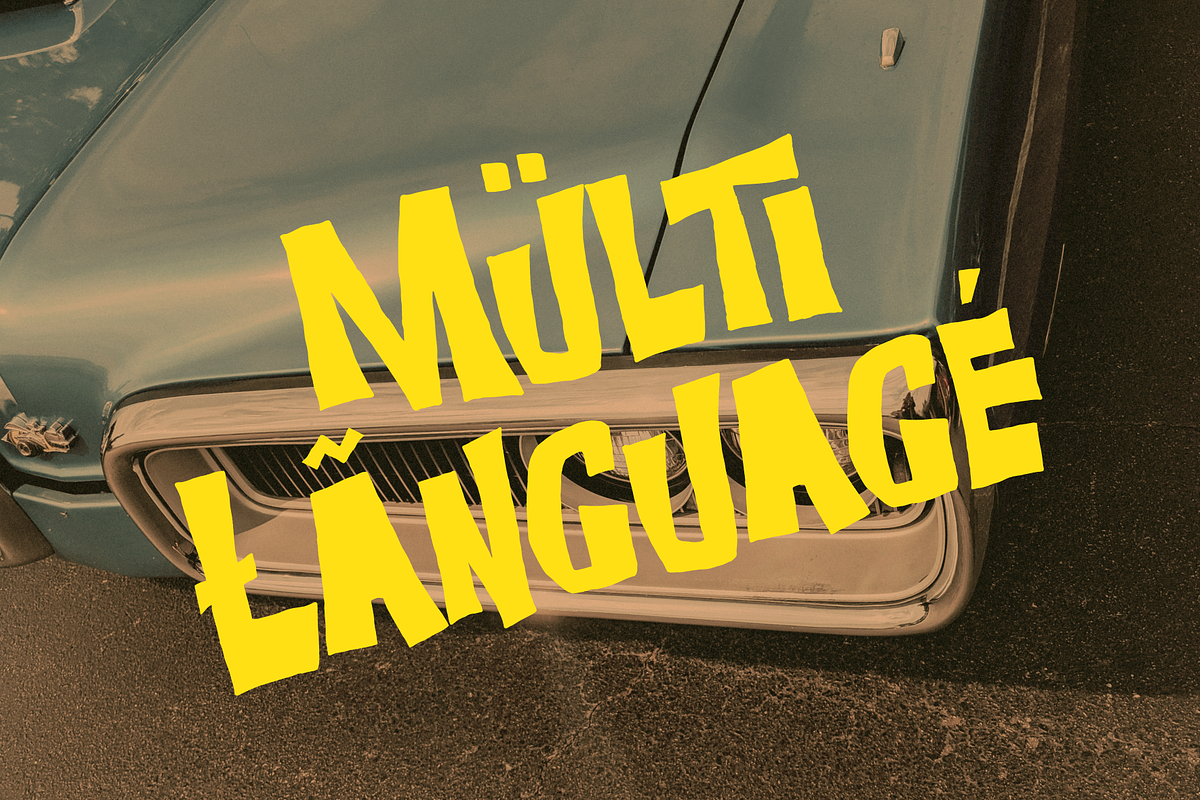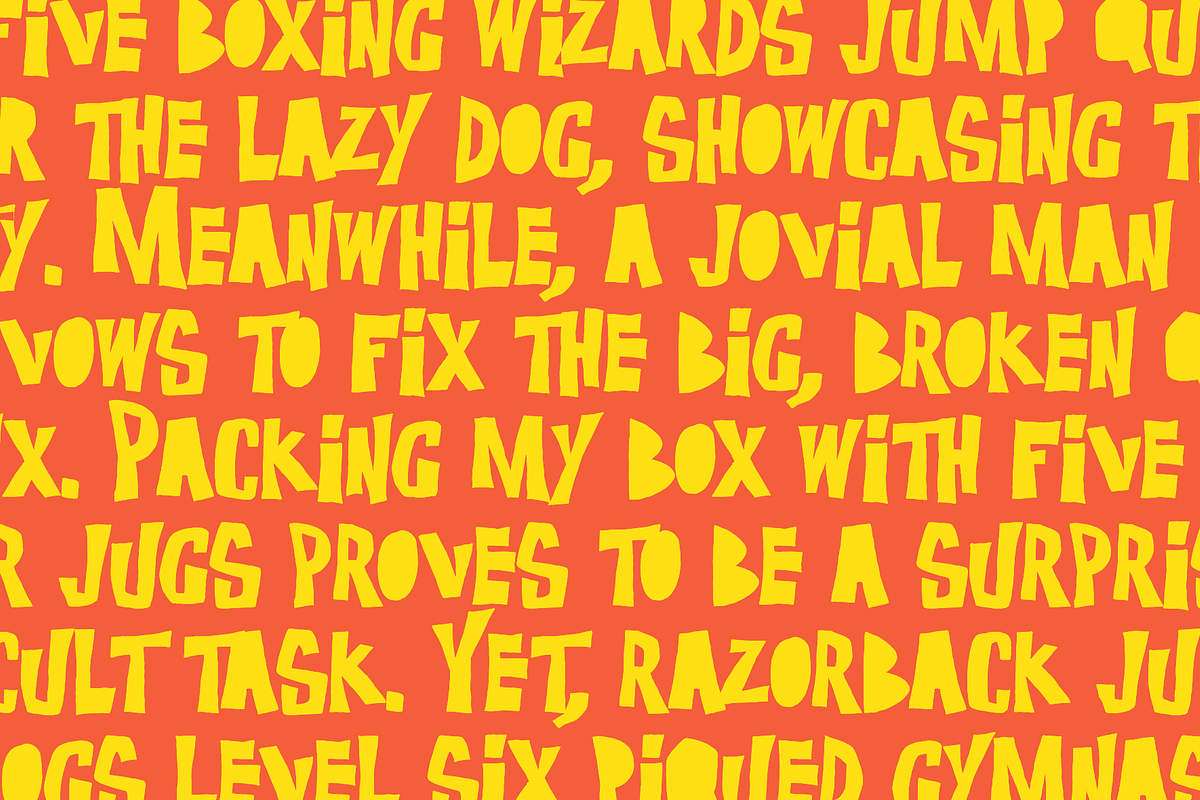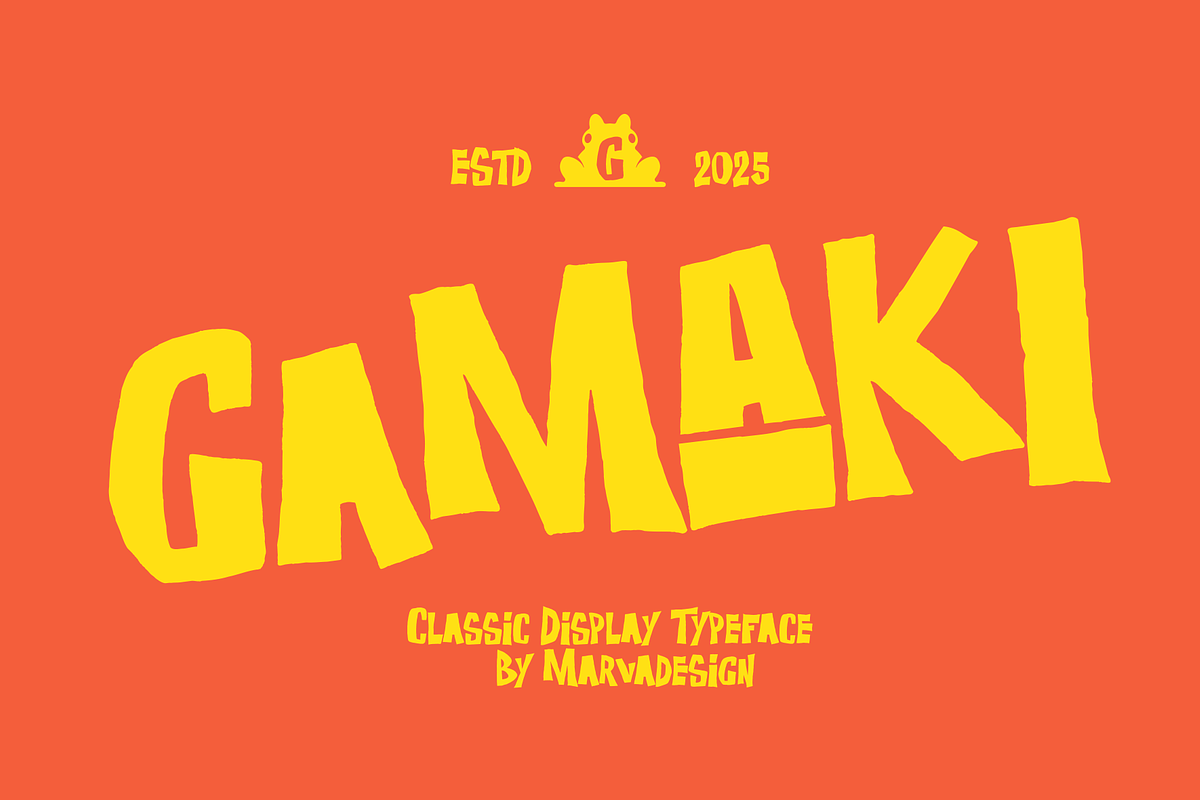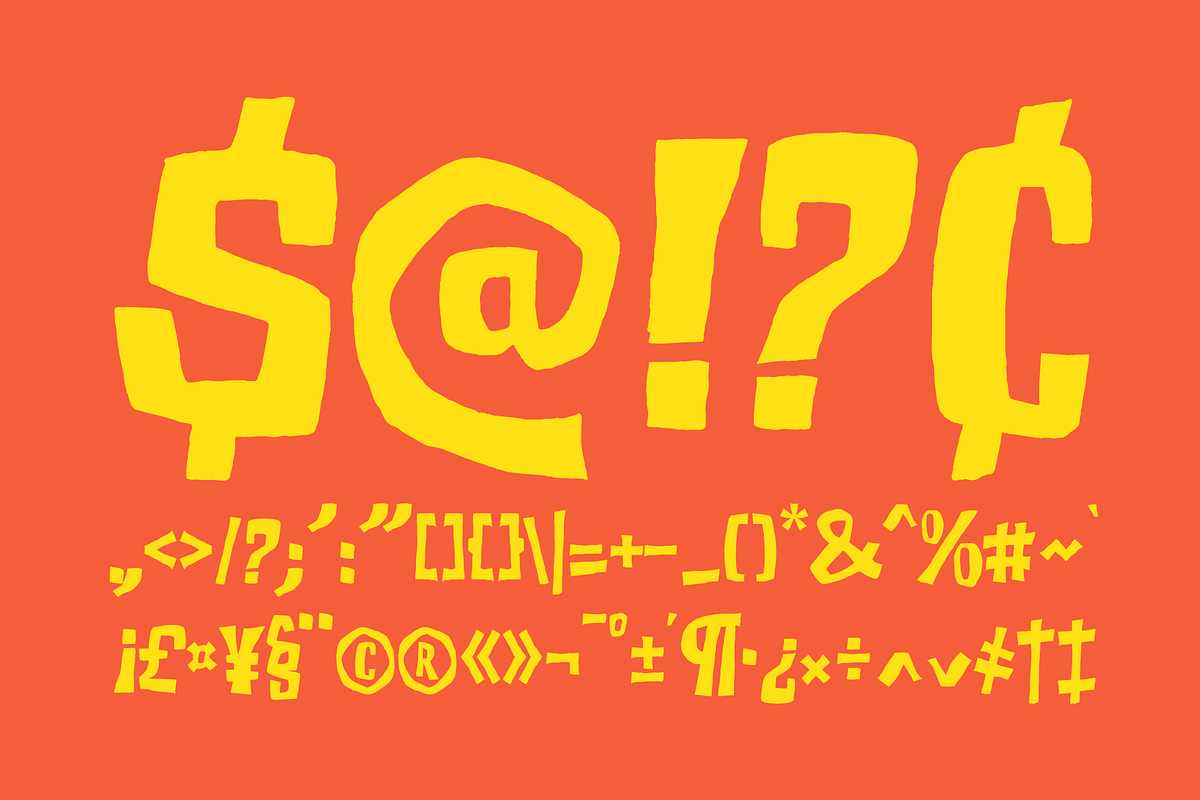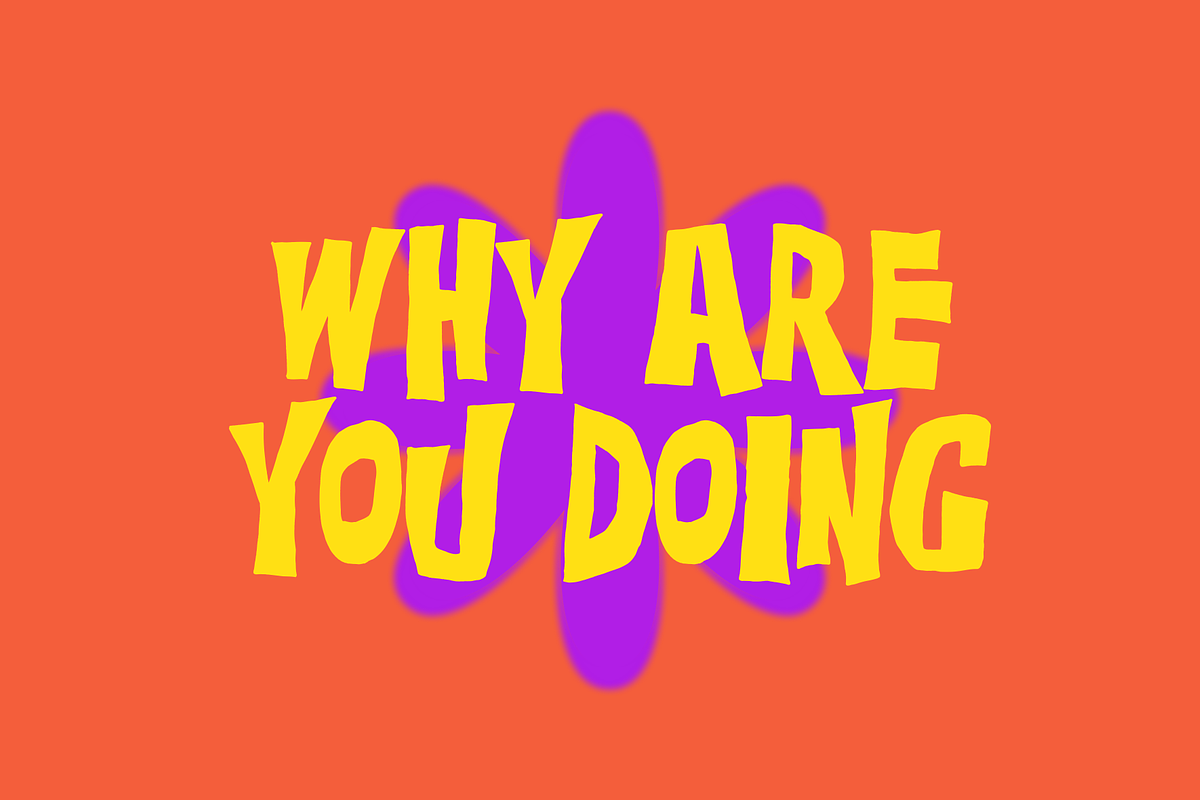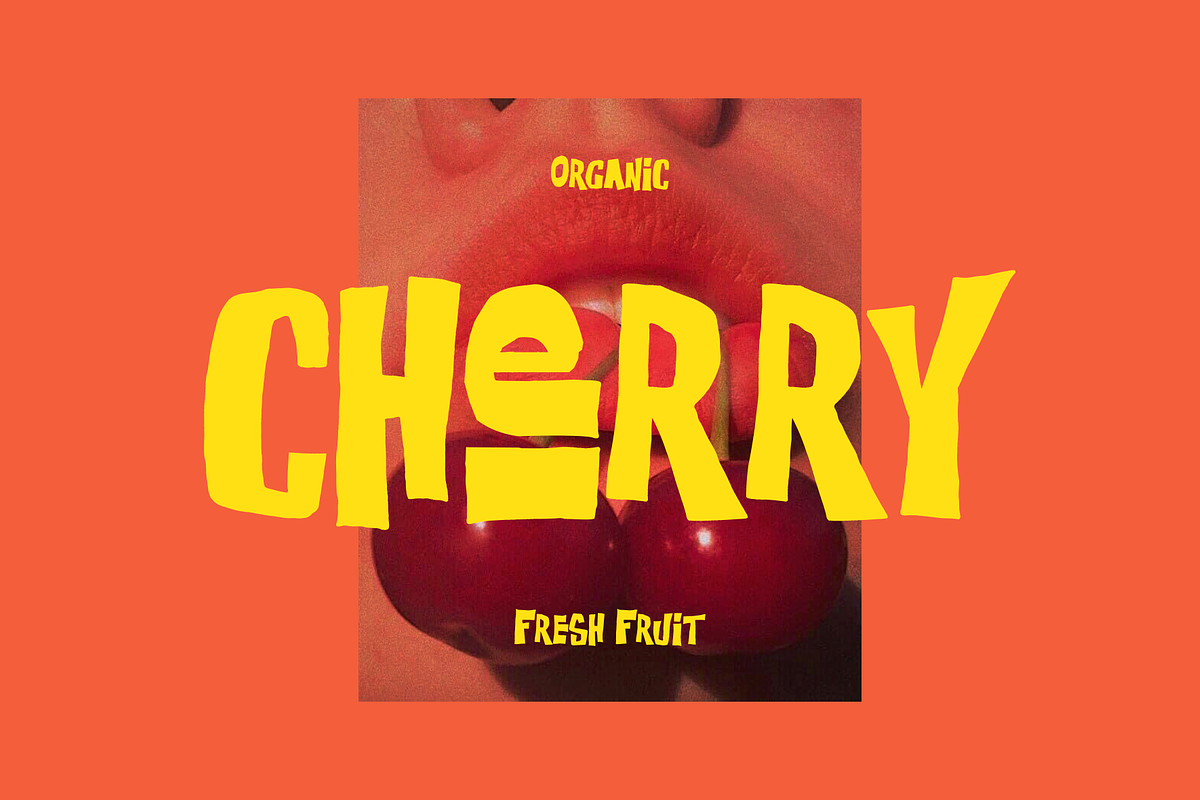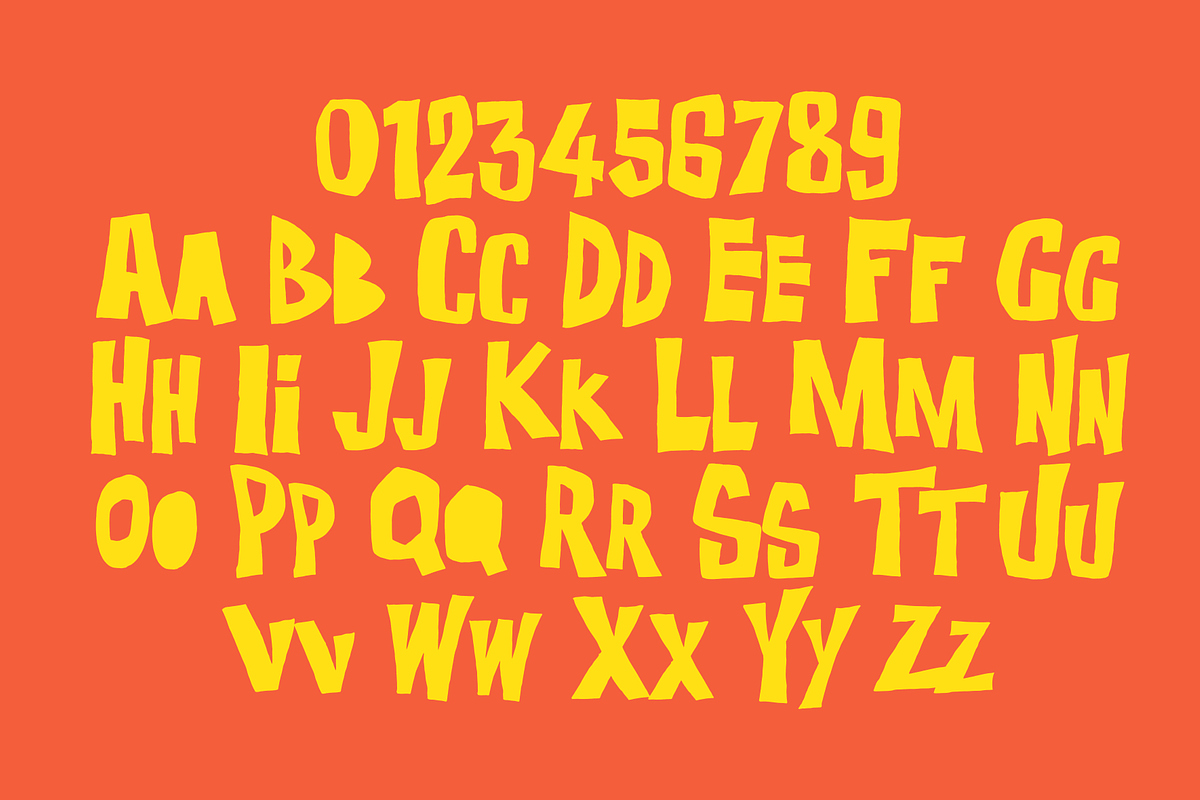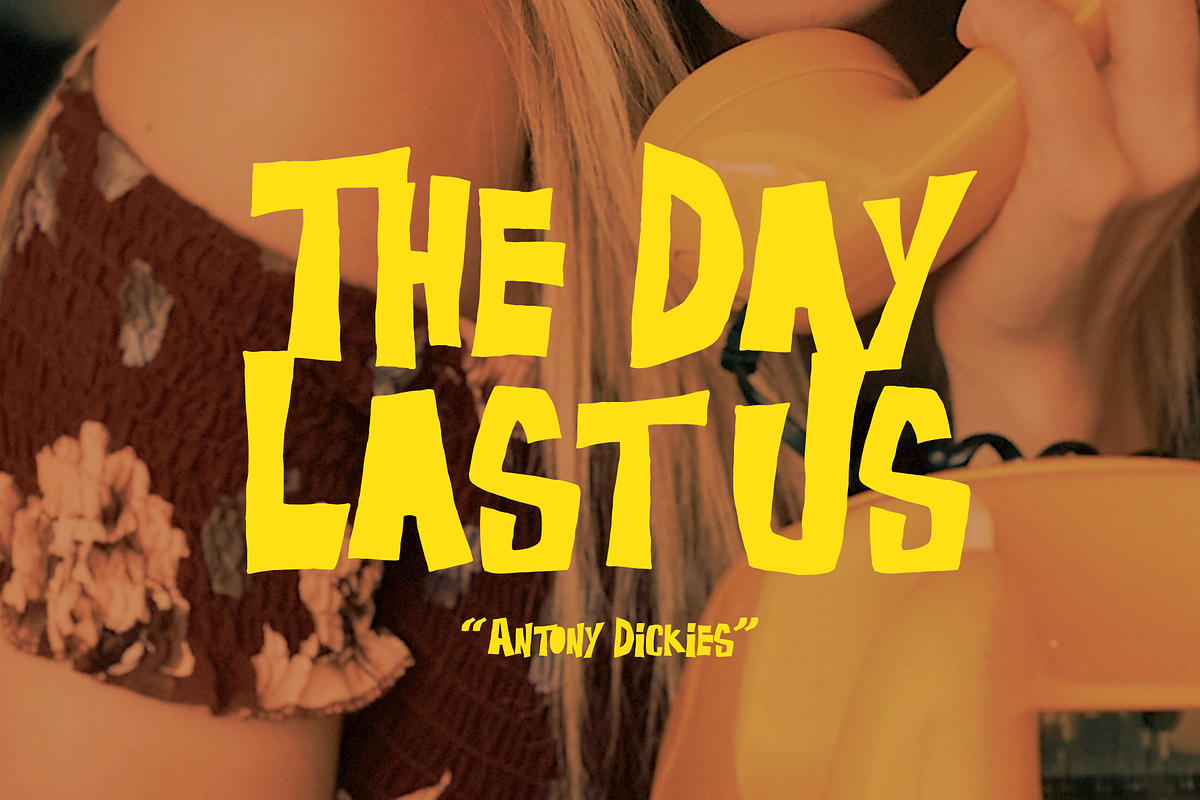
Gamaki - A Classic Playful Font
Introducing New Playful Font Font Gamaki a bold and playful display typeface with a hand-drawn, irregular aesthetic. Its letters have an organic, slightly wobbly structure, giving it a fun and energetic look. The thick strokes and uneven baseline make it ideal for eye-catching headlines, branding, or posters. The font's exaggerated proportions and rough edges contribute to a casual, lively feel, reminiscent of vintage cartoon lettering or signage.